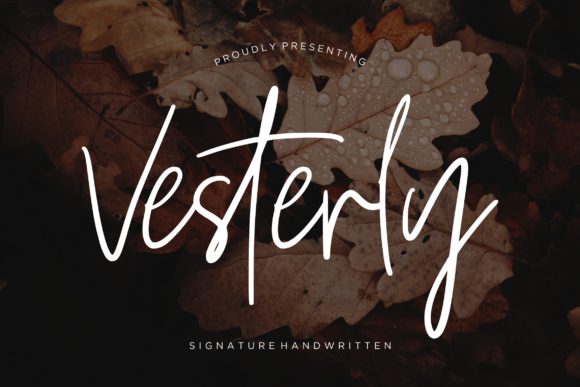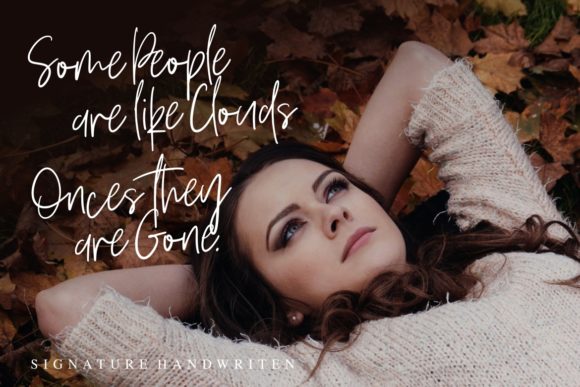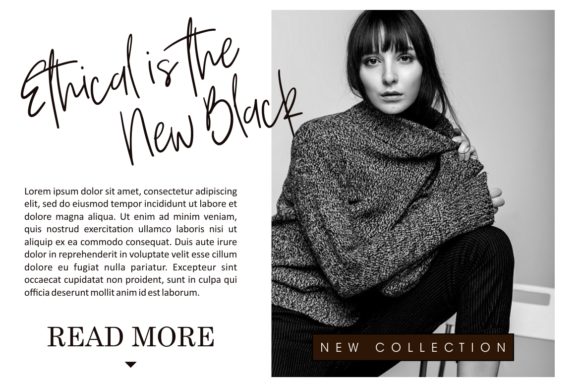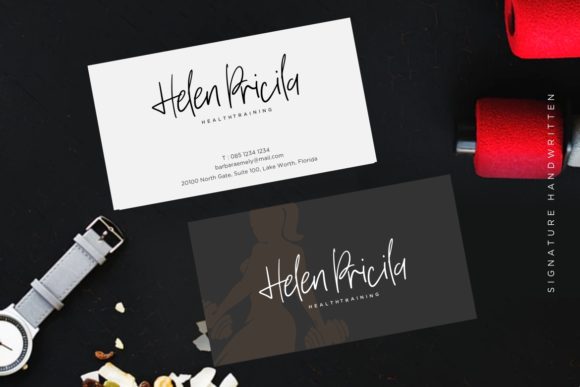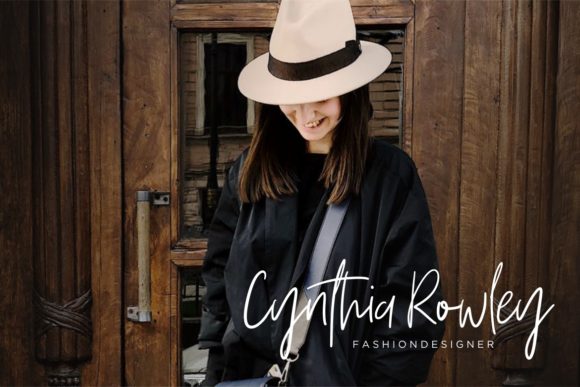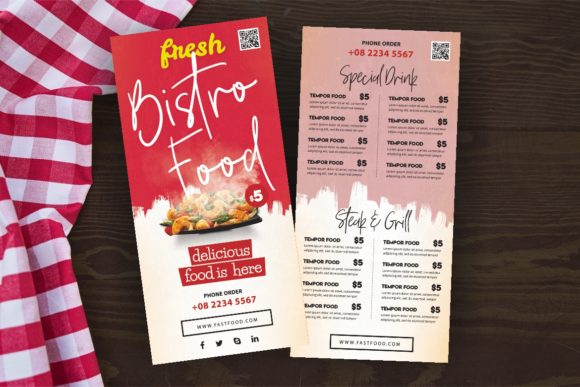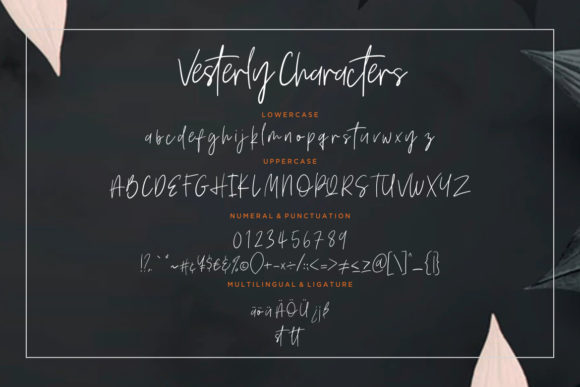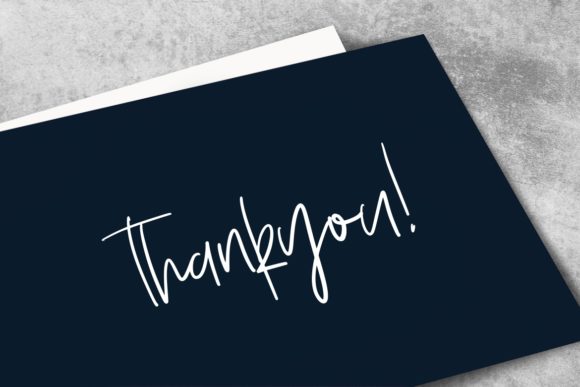
Vesterly Font
About Vesterly Font
Vesterly is a friendy and fun script with an extraordinary style. Use it to turn any design project into a true standout!